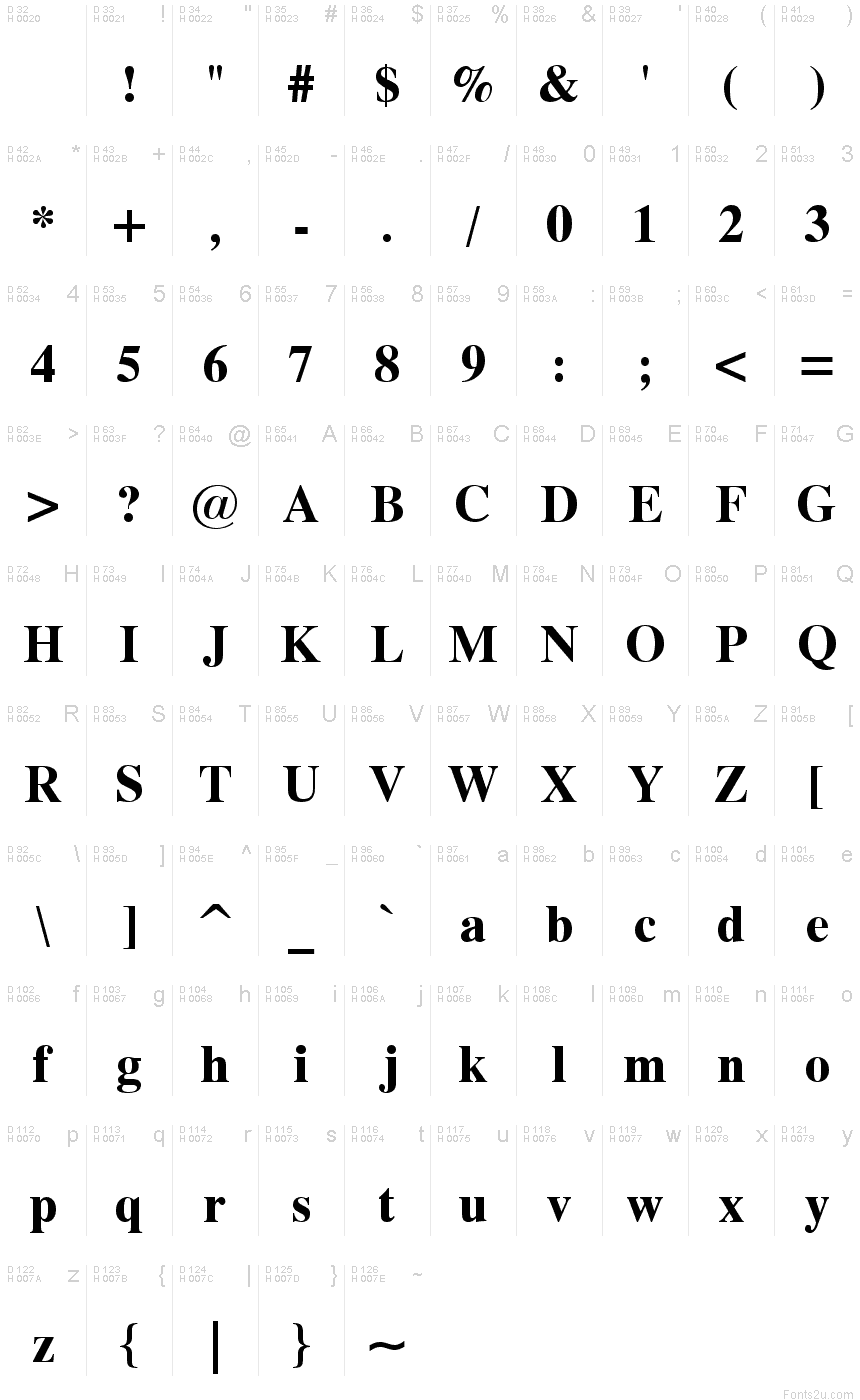
Timok Bold from Altsys Metamorphosis is a free high-contrast serif font with an editorial character. Its tall letters combine broad main strokes with fine hairlines and crisp, unbracketed serifs. Rounded forms are generous, and the lowercase shapes keep the same sharp contrast.
Magazine mastheads are its most convincing role, where the dramatic weight shifts suit fashion and culture publishing. The same formal drawing also fits luxury packaging and event posters, but its clearest strength is a commanding publication nameplate.